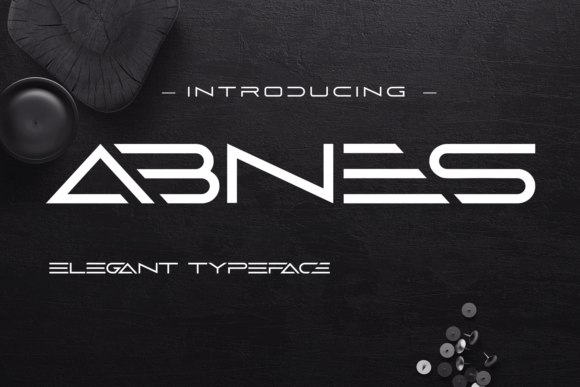
Introducing Abnes Font: Elevate Your Designs with Modern Elegance
In the world of typography, fonts play a pivotal role in conveying messages, evoking emotions, and creating lasting impressions. For designers, crafters, and anyone looking to add a touch of sophistication to their projects, the Abnes Font is a game-changer. This modern and stunning display font is designed to transform your headings, invitations, logos, and more into breathtaking works of art.
What Makes Abnes Font Stand Out?
Abnes Font is not just another addition to the vast sea of typefaces. Its unique blend of modernity and elegance sets it apart, making it a versatile tool for various design needs. Here are some features that make Abnes truly special:
- Modern and Stunning: With its clean lines and contemporary aesthetic, Abnes brings a fresh look to any design project.
- Versatile: Whether you’re crafting beautiful headings, designing gorgeous invitations, or creating stunning logos, Abnes adapts seamlessly to different contexts.
- PUA Encoded: The font’s PUA (Private Use Area) encoding is a significant advantage. This means that you can easily access all the glyphs and swashes, offering you greater flexibility and creativity in your designs.
The Power of PUA Encoding
PUA encoding is a feature that sets Abnes Font apart from many other fonts available today. But what does PUA encoding mean, and how does it benefit you?
PUA encoding refers to a section of Unicode reserved for private use. In the context of fonts, this means that the font can include a wide range of glyphs and swashes that are not limited by standard Unicode restrictions. For designers, this translates into a broader creative palette:
- Easier Access to Glyphs and Swashes: With Abnes Font, you can access all the additional glyphs and swashes without needing specialized software or complicated workarounds.
- Enhanced Customization: The ability to use a wide range of glyphs and swashes allows for greater customization of your designs, helping your work stand out.
- Streamlined Workflow: PUA encoding simplifies the design process. You can focus on creating rather than getting bogged down in technical limitations.
Applications of Abnes Font
The versatility of Abnes Font makes it suitable for a multitude of applications. Here are some ideas to get you started:
- Headings and Titles: Elevate your website, blog, or printed materials with stunning headings that capture attention.
- Invitations and Announcements: Create gorgeous invitations for special occasions, events, or announcements that leave a lasting impression.
- Logos and Branding: Use Abnes Font to craft unique and memorable logos that define your brand’s identity.
- Social Media Graphics: Stand out on social media platforms with eye-catching graphics and posts designed with Abnes Font.
Tips for Maximizing Abnes Font’s Potential
To truly leverage the capabilities of Abnes Font, consider the following tips:
- Experiment with Glyphs and Swashes: Don’t be afraid to explore the range of glyphs and swashes available. They can add a unique touch to your designs.
- Mix and Match: Combine Abnes Font with other typefaces for interesting contrasts and visual hierarchies.
- Play with Colors and Textures: Enhance your designs by experimenting with different colors and textures that complement the elegance of Abnes Font.
Abnes Font is more than just a typeface; it’s a tool for creativity and expression. Its modern elegance, versatility, and PUA encoding make it an invaluable asset for designers and crafters looking to elevate their projects. Whether you’re aiming to create stunning headings, gorgeous invitations, or memorable logos, Abnes Font offers the flexibility and aesthetic appeal to bring your vision to life.
Embrace the possibilities with Abnes Font, and discover how this modern and stunning display font can transform your designs into works of art.